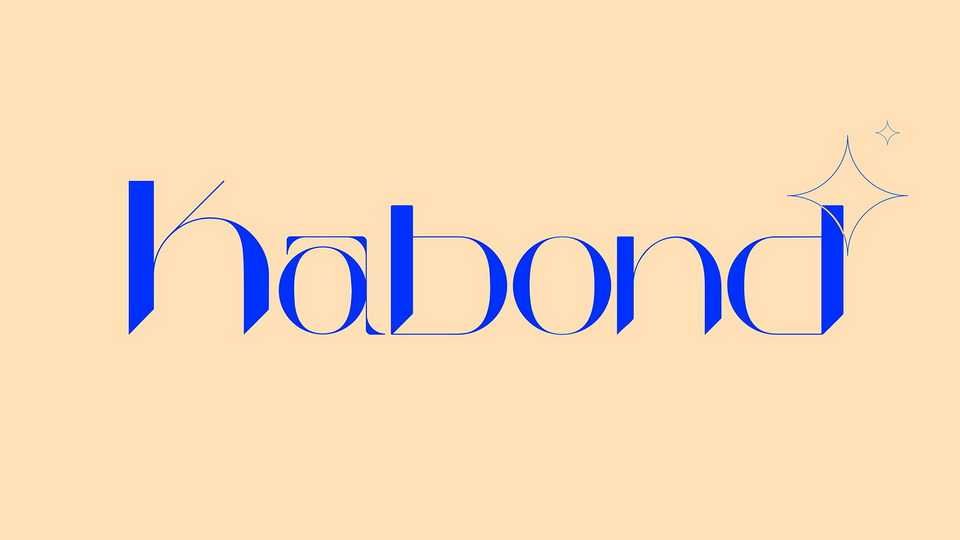
Download Kabond font, a high contrast modular display typeface with a unique personality. Kabond is perfect for posters, short text blocks, prints and other artworks.
Designer: Nicolas SILVAIN